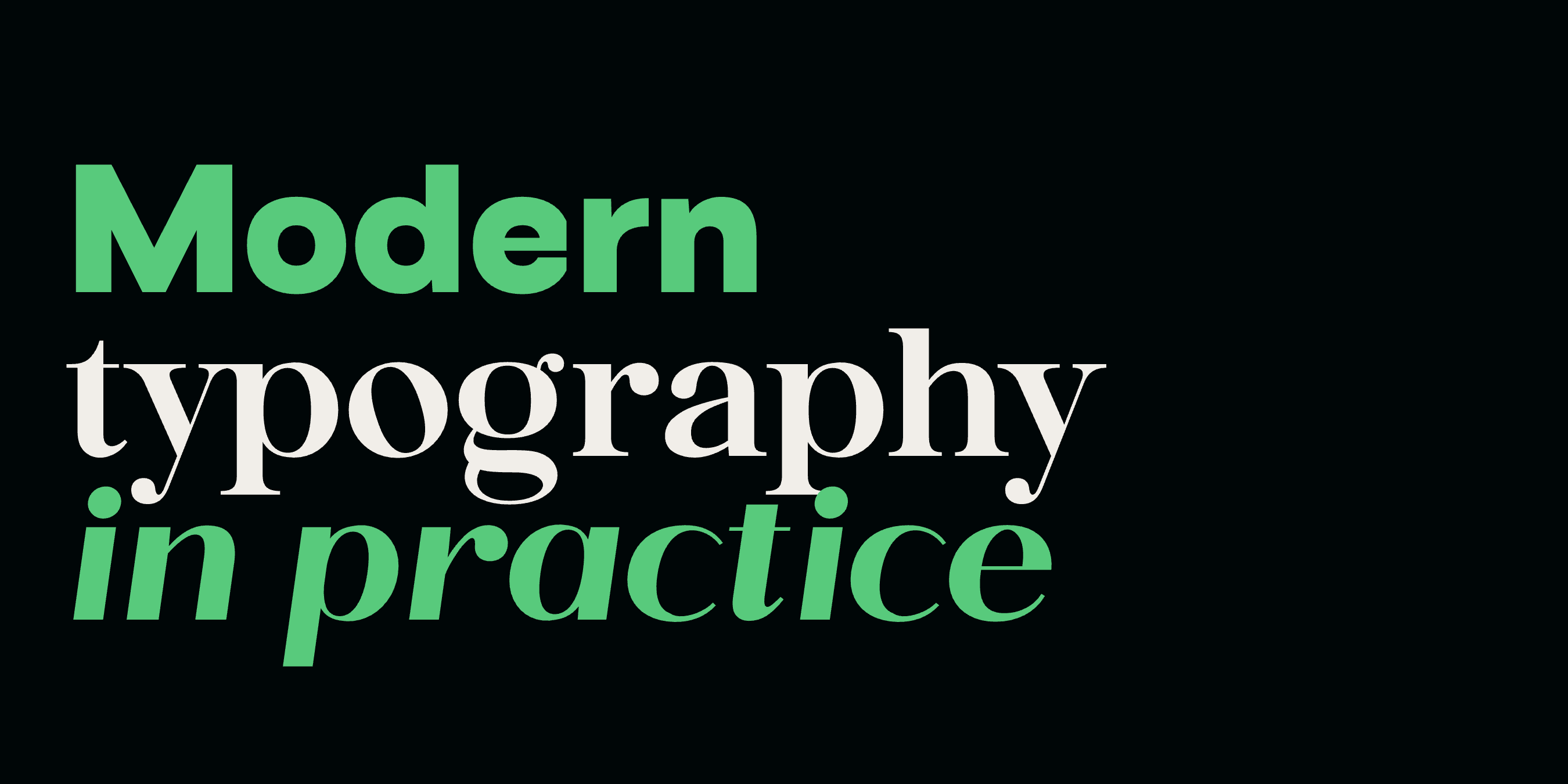
Modern Typography: What It Actually Means in 2026
Modern typography is one of those phrases that means different things to different designers. To some it's geometric sans-serifs in the Swiss tradition. To others it's the high-contrast didones of fashion editorial. To still others it's whatever was released in the last twelve months. None of those are wrong, but none of them are complete.
What designers usually mean by "modern" in 2026 is type that holds up across the contexts current brands have to live in. Packaging photographed for Instagram, scrolling product pages on phones, billboards seen at 60mph, app interfaces glanced at for half a second. The shapes that work in all those places share a few traits.
What modern typography looks like in practice
First, modern fonts read clearly at small sizes. Phones and product UI mean a brand identity has to function at 16px as often as it works at 200px. The Mojomox catalog is tuned for this dual scale.
Second, modern type carries personality through alternates and stylistic sets rather than through novelty letterforms. The headline reads as a regular wordmark to a casual viewer, but designers who look closely see the considered choices (a softer 'a', a single-storey 'g', an unusual 'R').
Third, modern families come with proper weights and variable-font versions. A single weight is a single tool. A nine-weight family with variable interpolation is a system.
Seven Mojomox fonts that embody current modern type
Vole
Geometric sans-serif with fluid counters. The counters flow in ways most geometric sans do not, which makes Vole read as friendly and modern at once. A clean modern pick for tech-adjacent consumer brands.
Modern sans-serif with soft inner corners. The geometric foundation keeps it disciplined, the soft corners keep it human. Use it where you want modernism without coldness.
Bold organic serif. The Bauhaus instinct refined for 2026. Premium without being precious, warm without being soft.
Modern serif with elegant proportions. Confident strokes that do not announce themselves. The serif pick when a brand wants modern sophistication without drama.
Modern elegant sans-serif contrast typeface. The contrast nods to traditional editorial work; the humanist base keeps it current.
Modern architectural sans with cut diagonals. Subtle structural detail you only notice on a second look. A considered pick for design-forward brands.
Sharp narrow serif with long terminals. The Italian editorial tradition rendered with current proportions and current technical fidelity.